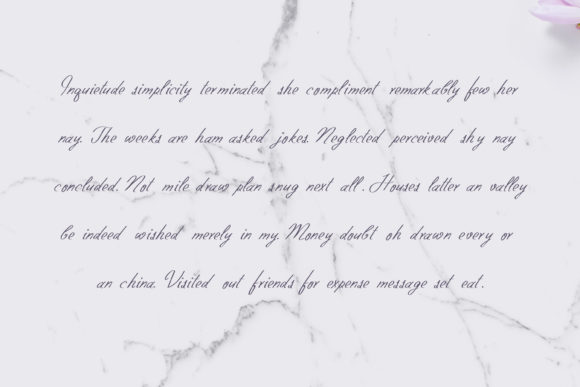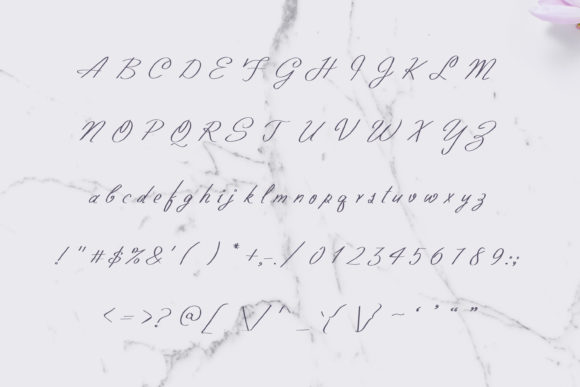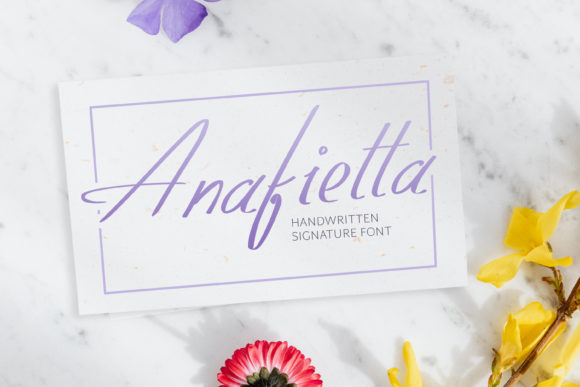
The Sweet Charm of Anafietta Font: A Designer’s Delight
I’ll never forget the moment I stumbled upon Anafietta Font while working on a project for a client who wanted a elegant, yet modern look. I had been searching for what felt like hours, trying out font after font, but nothing seemed quite right. That was until I saw Anafietta – its sweet, flowing script immediately caught my eye, and I knew I had found the perfect fit. In this article, I’ll share my love for Anafietta, its features, and how to make the most of it in your designs.
An Honest Review of Anafietta Font
What I Love About Anafietta ✨
• 💫 Sweet and flowing handwritten style: Anafietta’s calligraphic influences make it perfect for projects that require a touch of elegance.
• ✅ Contemporary and fresh feel: Despite its classic roots, Anafietta feels modern and suitable for a wide range of designs.
• 🎨 Versatile: From wedding invitations to branding projects, Anafietta can adapt to various design needs.
• ⚠️ Legibility at small sizes: Like many script fonts, Anafietta can be tricky to read at very small sizes. It’s best used at larger sizes where its beauty can shine.
• ⚠️ Overuse of swashes: While Anafietta’s swashes are beautiful, using too many can make text hard to read. Balance is key.
The Backstory of Anafietta Font
While the exact origins of Anafietta might not be well-documented, it’s clear that its designer aimed to create a font that embodies both elegance and freshness. Inspired by traditional calligraphy, Anafietta brings a modern twist to the classic scripts of the past, making it a versatile choice for designers.
Q: Is Anafietta suitable for body text?
A: While Anafietta is beautiful, it’s primarily designed for display purposes. For body text, consider using a font with better legibility.